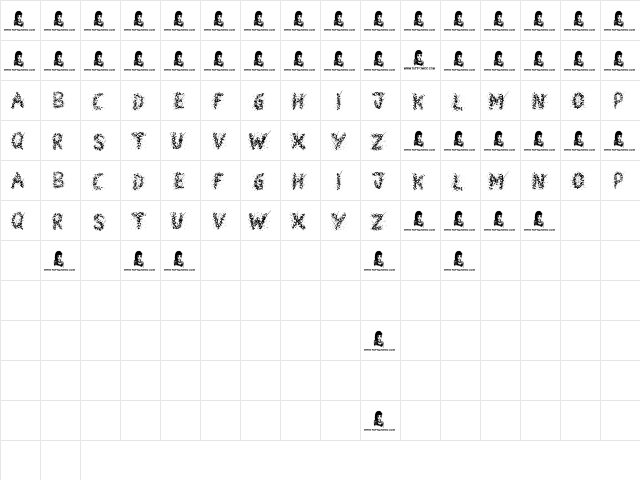
Snowmania Regular Font Preview
Snowmania Regular
Snowmania Regular Font Details
Design Context for Snowmania Typeface
Snowmania is a composed and adaptable typeface that performs quietly and consistently across a wide range of design contexts.